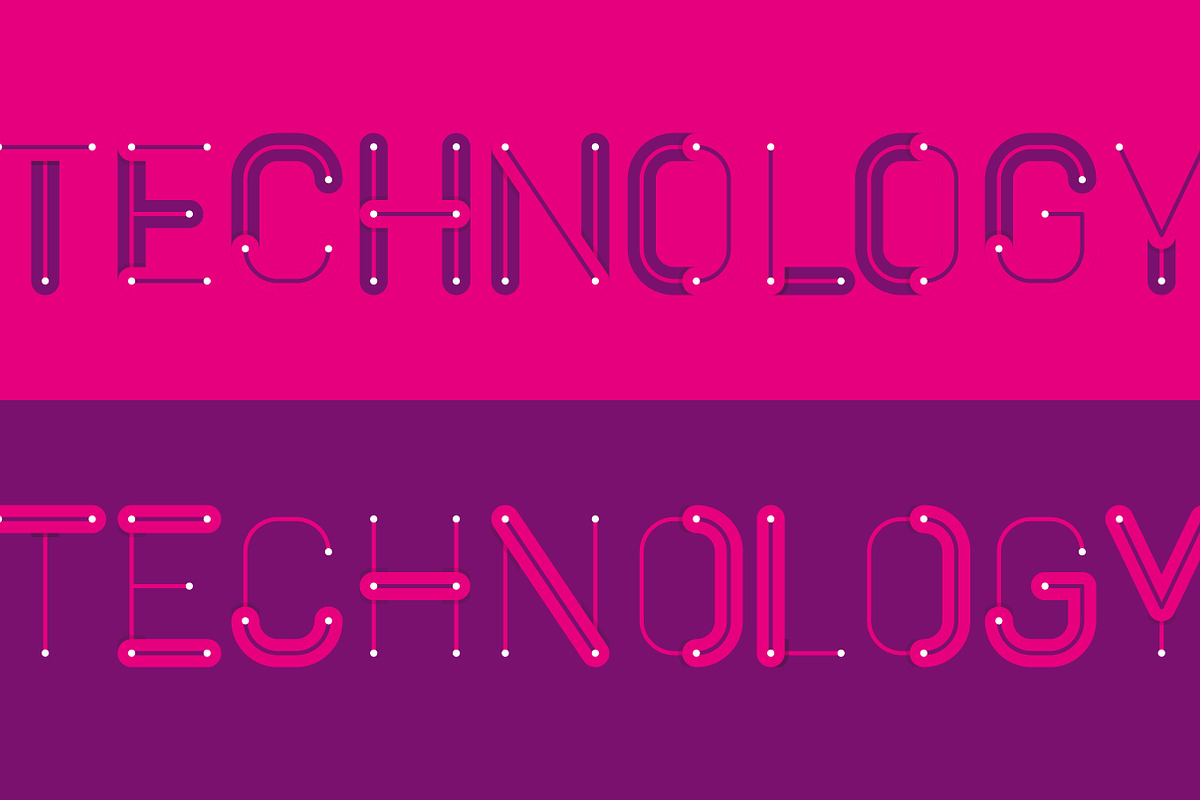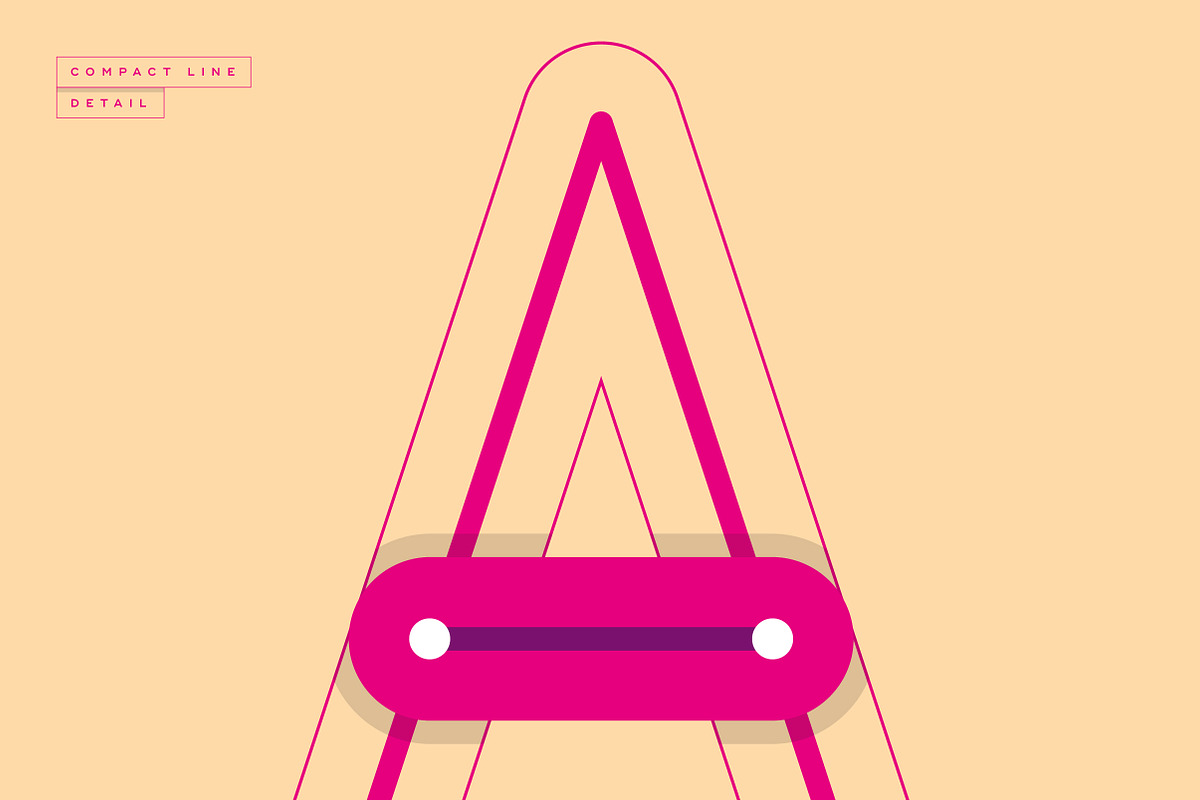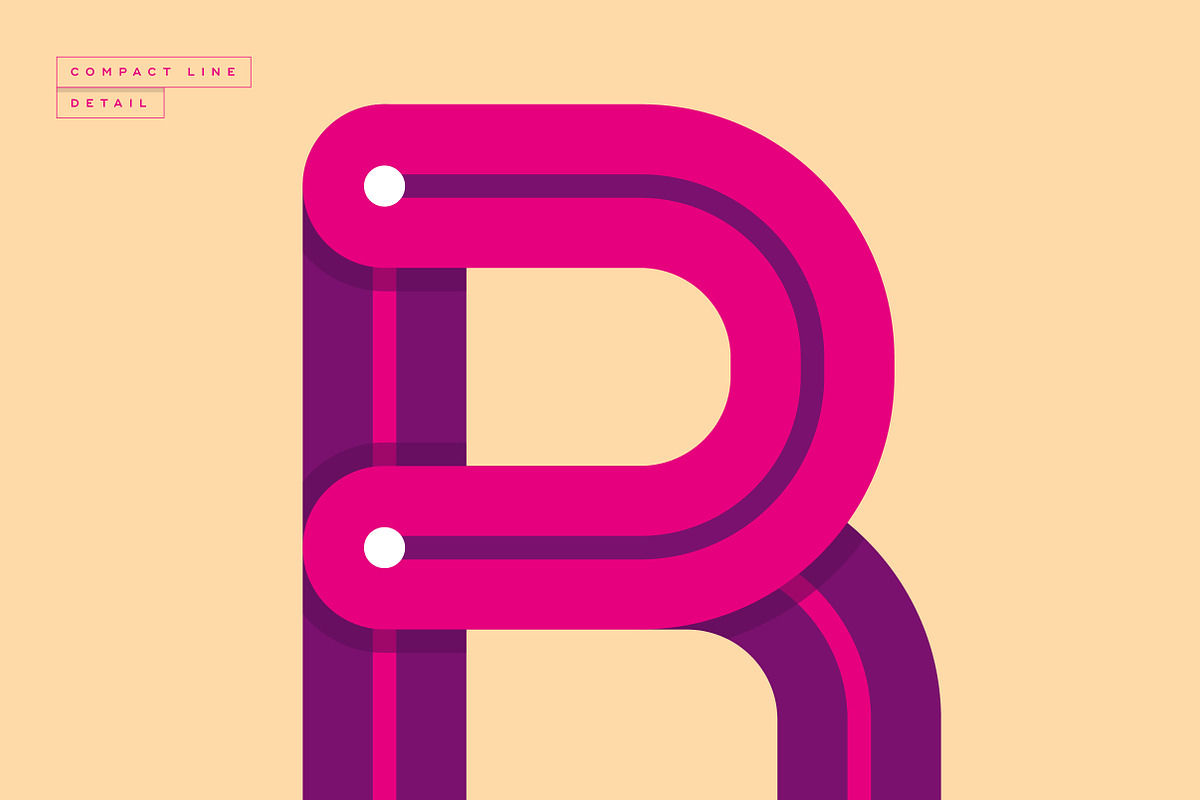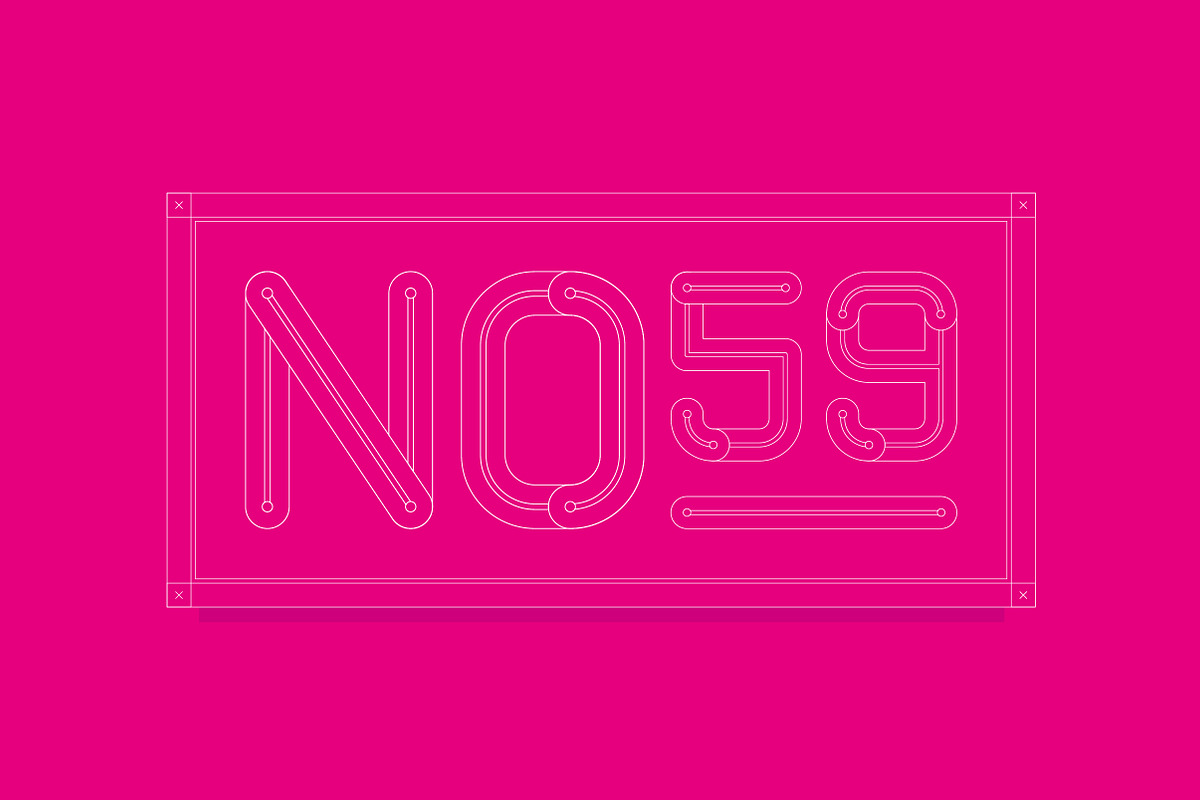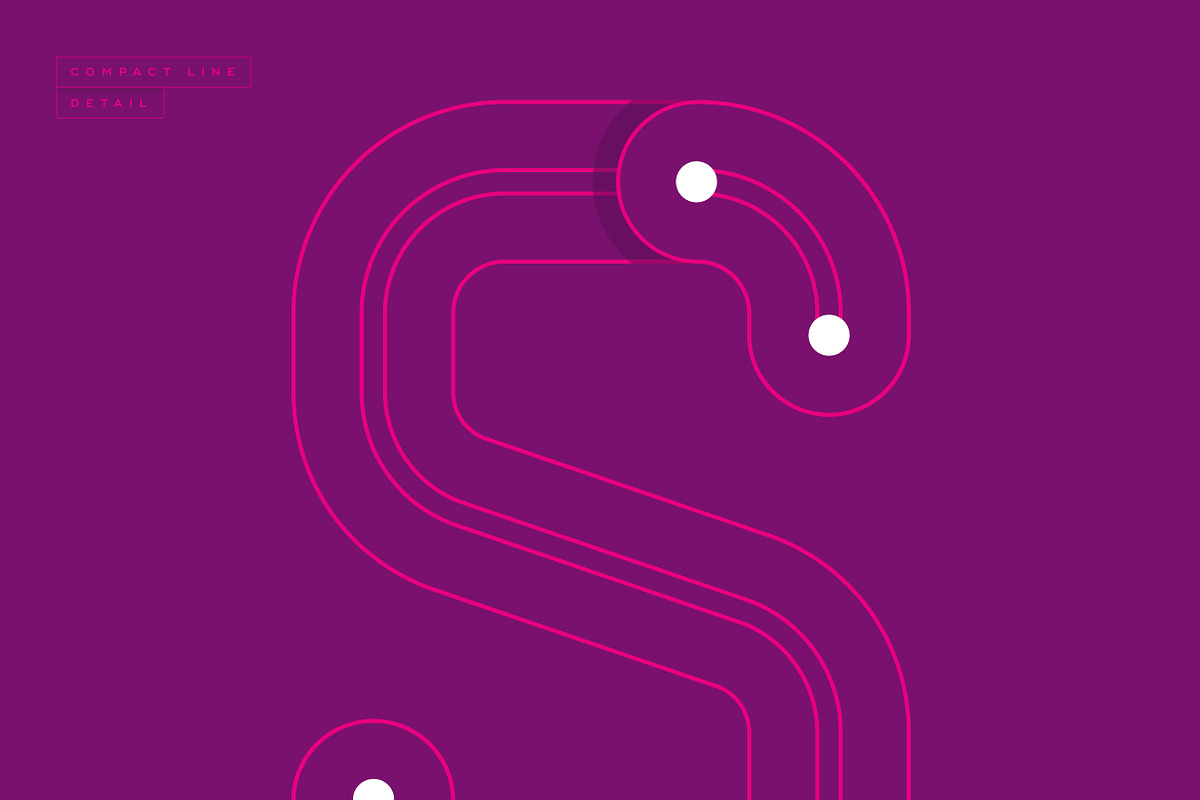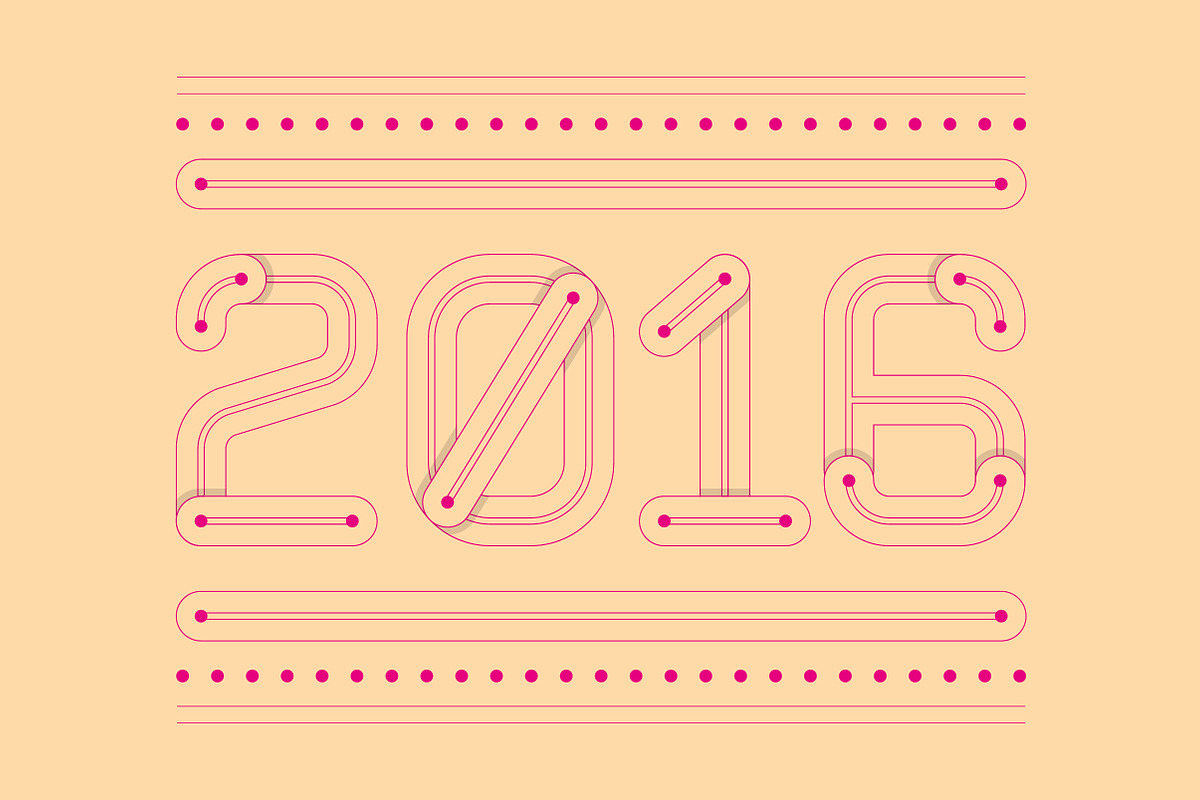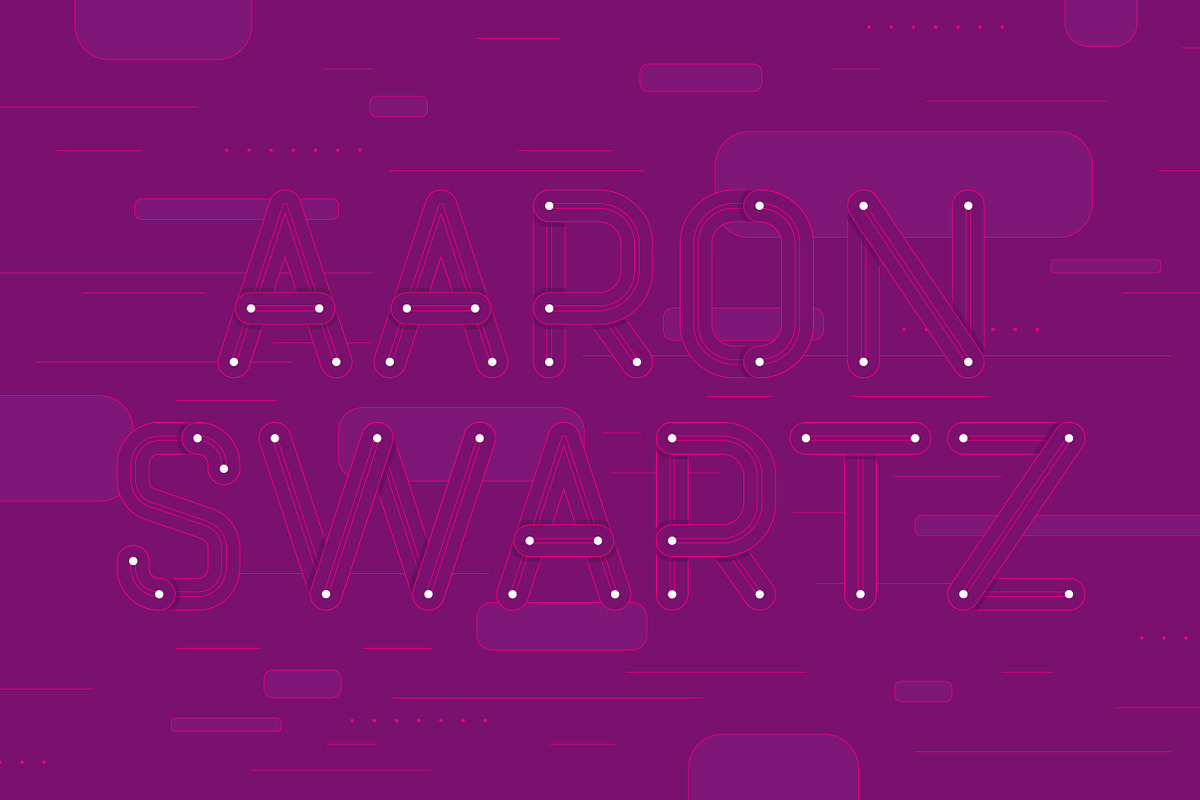
Compact Line Typeface
Compact Line Typeface by Neo-Neon Studio is a font selected for branding, posters, packaging, typography.
Why Compact Line Typeface is worth a look
Compact Line Typeface by Neo-Neon Studio fits naturally into Branding, posters, packaging, typography.